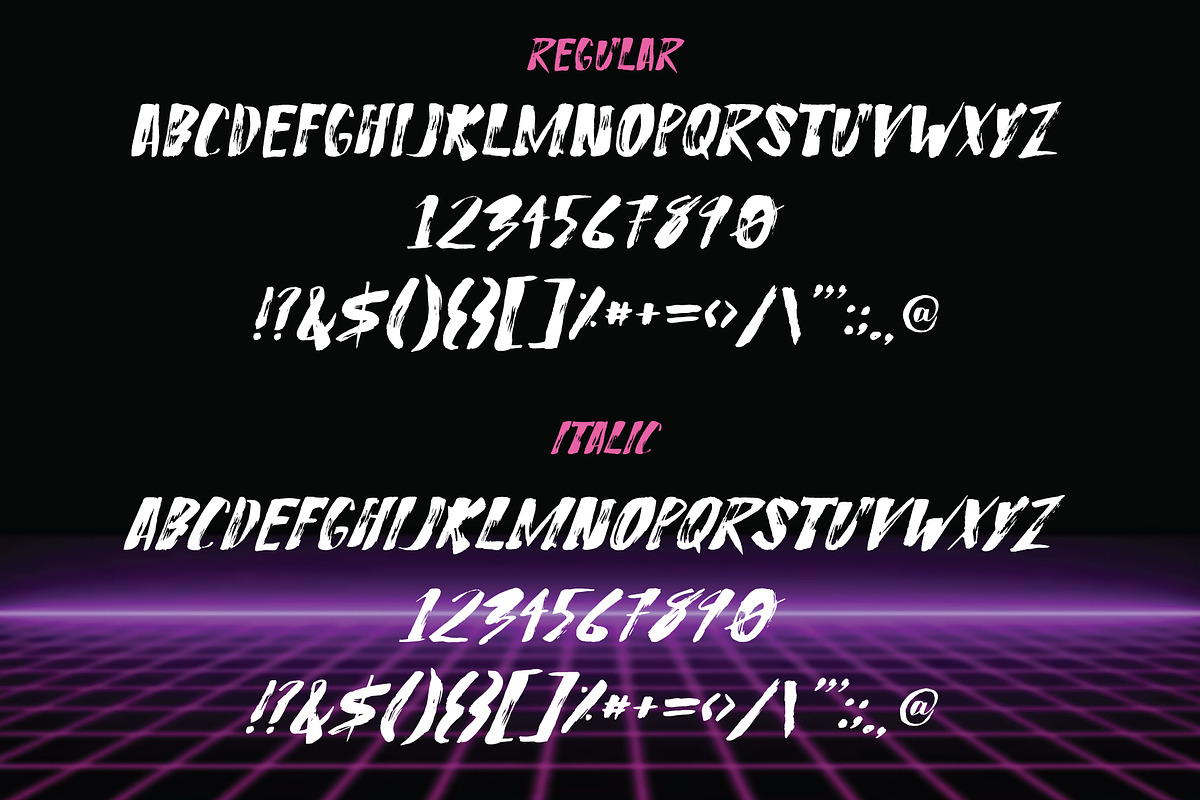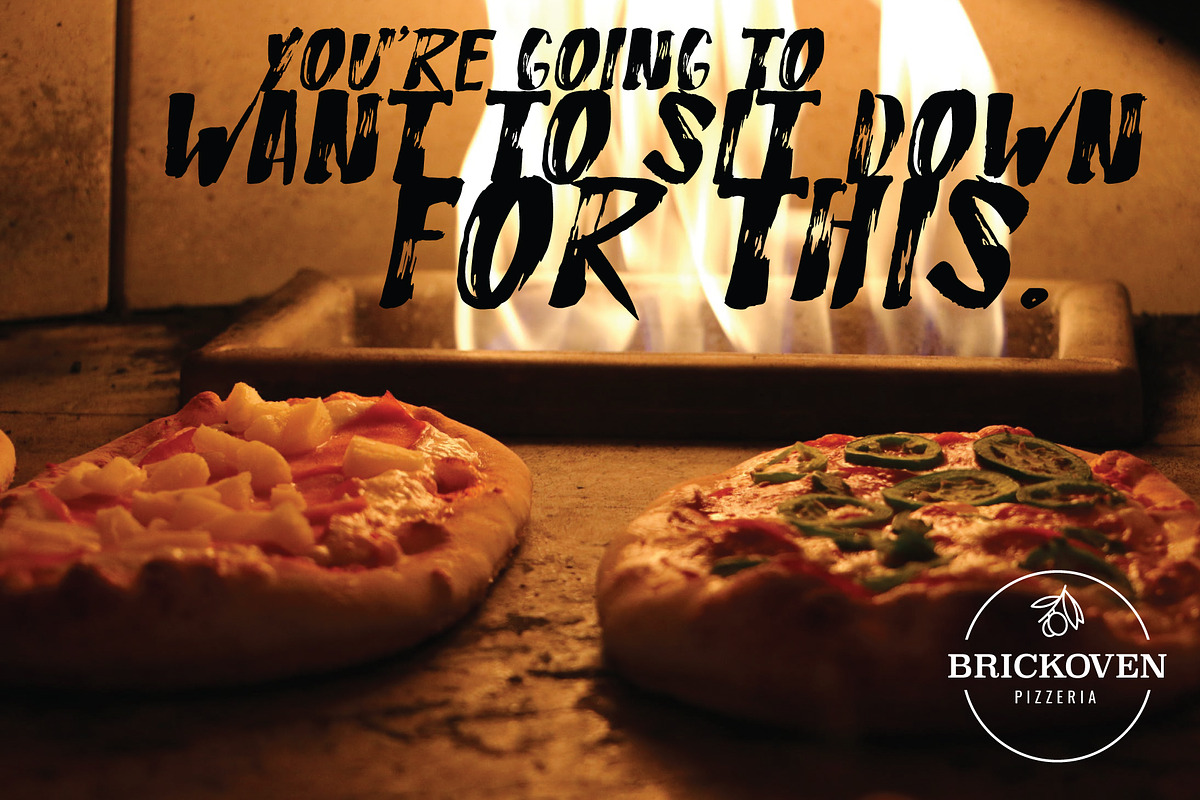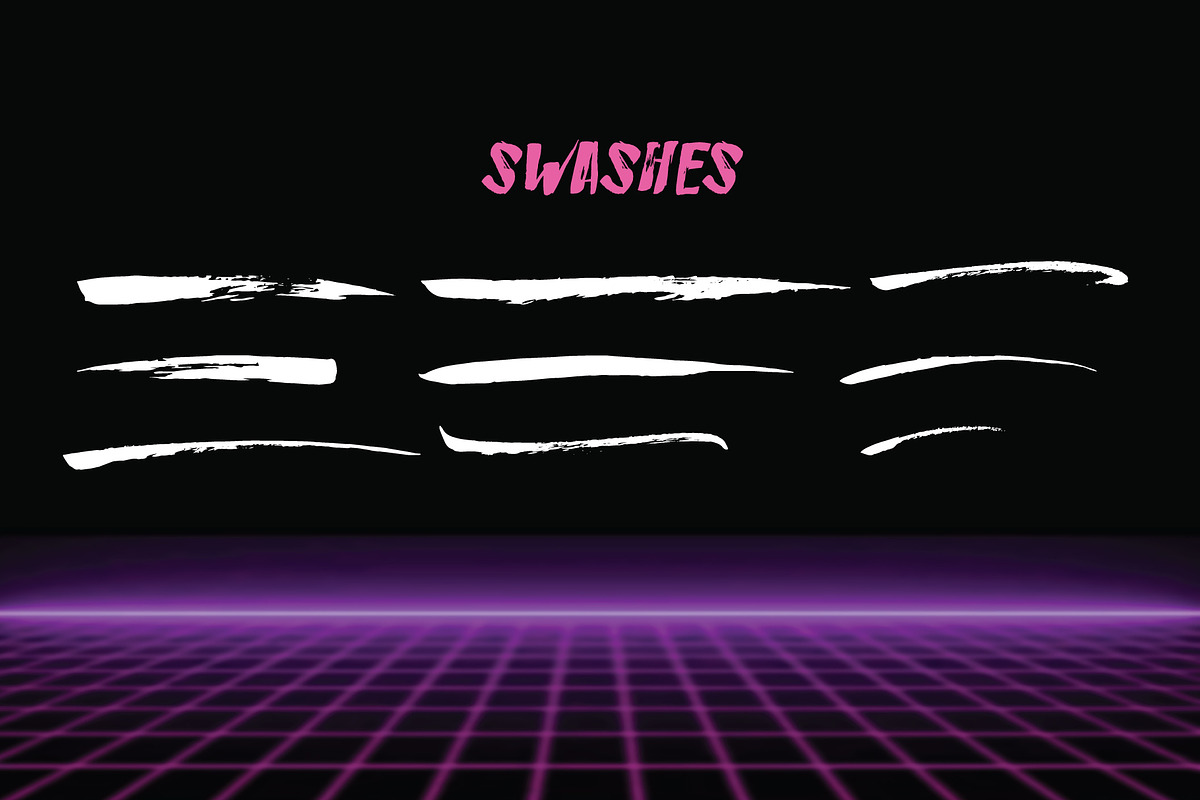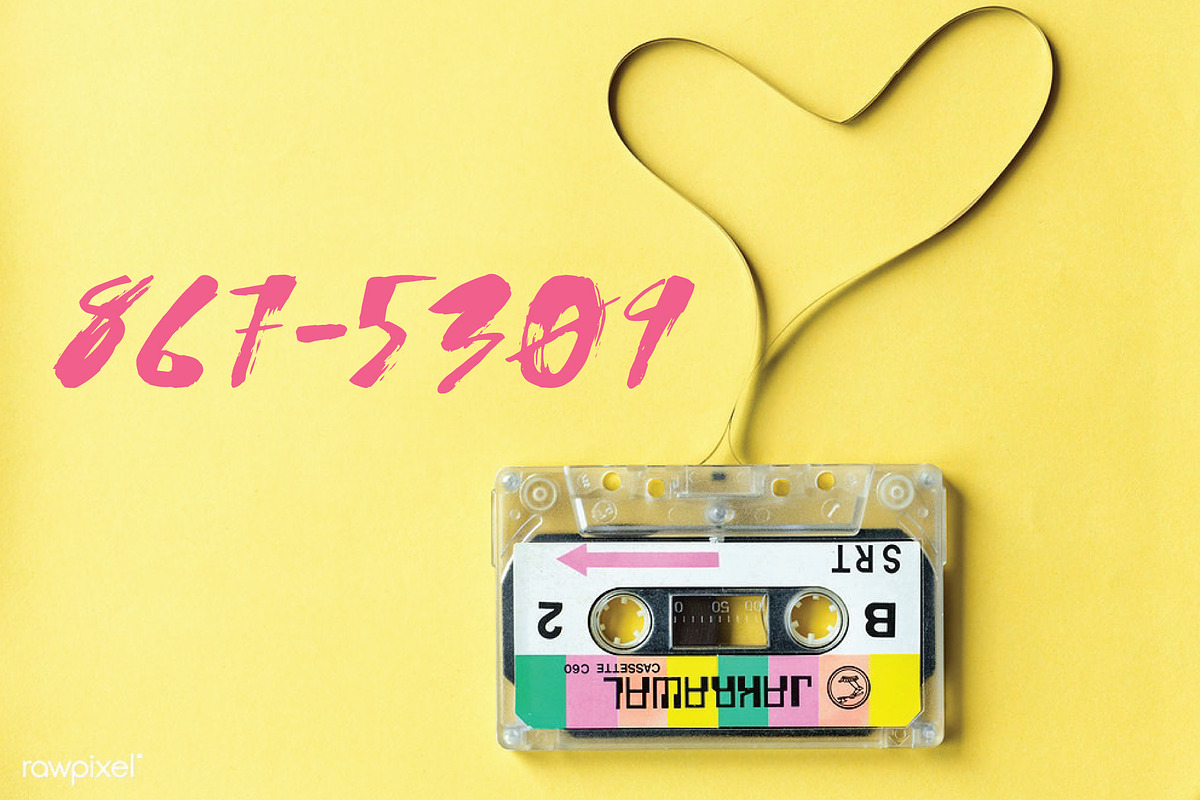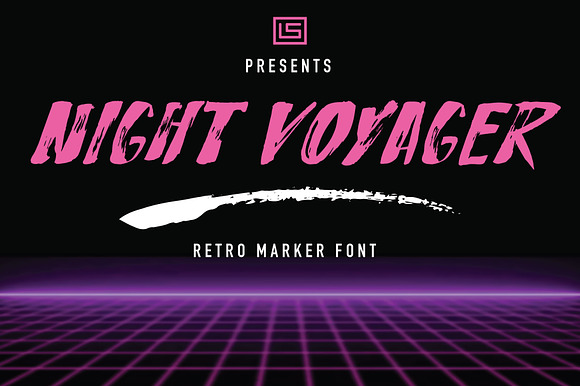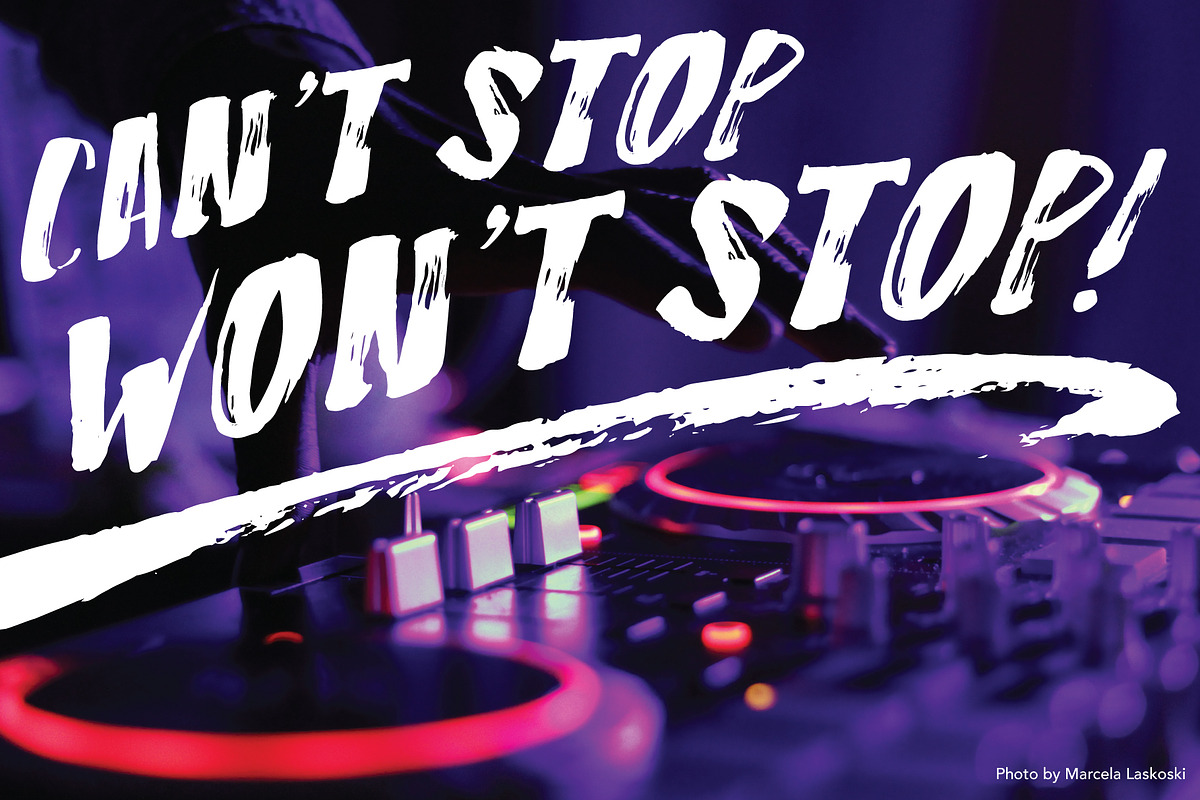
Night Voyager Marker Font
Night Voyager is a fun hand-drawn retro marker font in OTF and WOFF formats that can be used in both personal and commercial projects. It has a rough and loud 80’s vibe and can be used in a variety of projects both retro and modern.
You’ll also get a set of 9 swashes to use with Night Voyager or any other work you see fit!